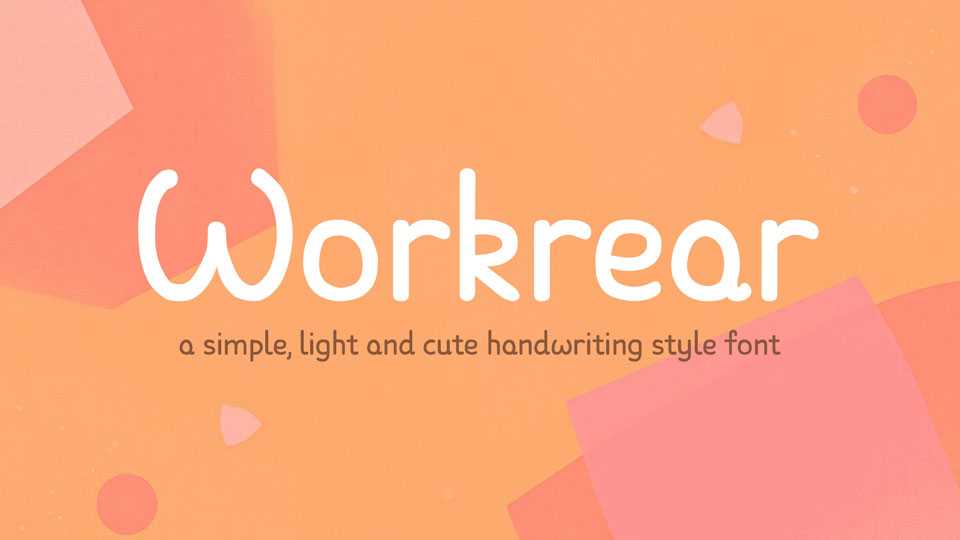
Download Workrear font, a simple, light, and cute handwriting-style typeface that feels like a warm hug from a friend. Its soft, rounded letterforms carry a sense of innocence and charm.